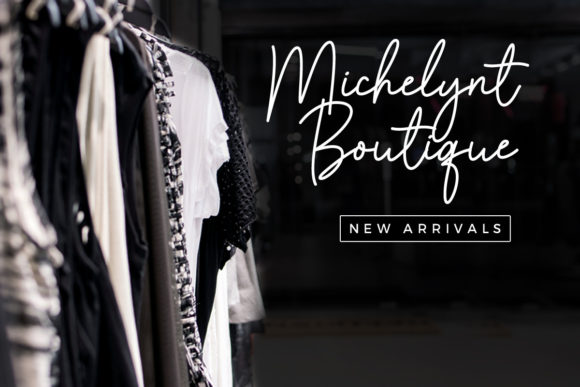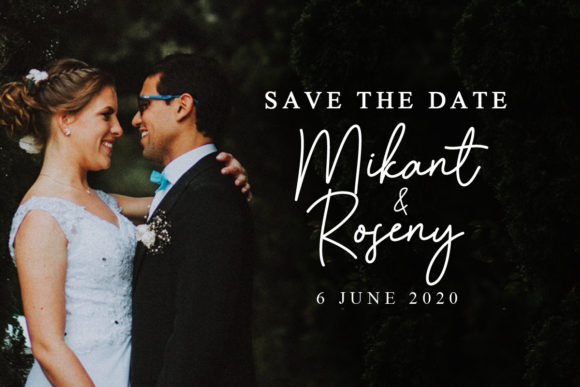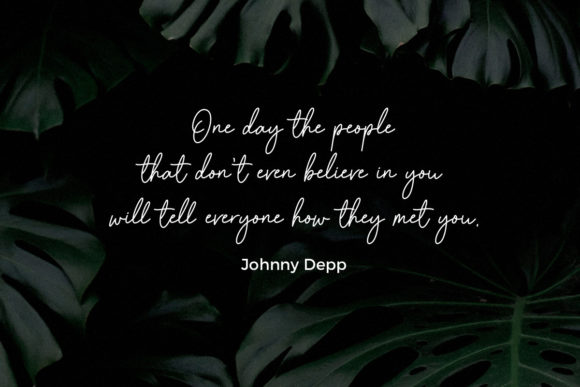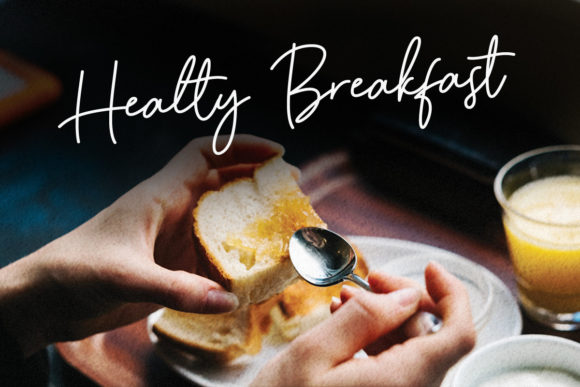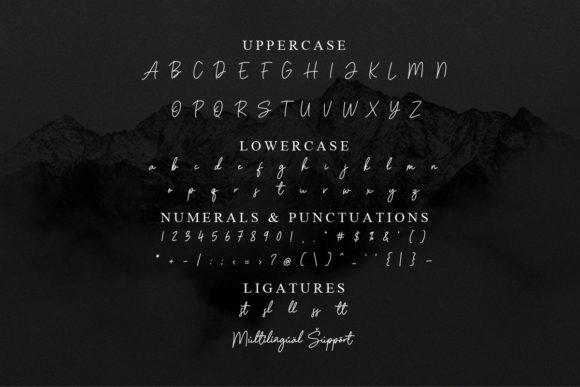
About Amstone Font
Amstone is a cursive, thin and relaxed script font. It has a classy, elegant and modern look that can be used for logos, branding, invitations, stationery, wedding designs, social media posts, and much more!